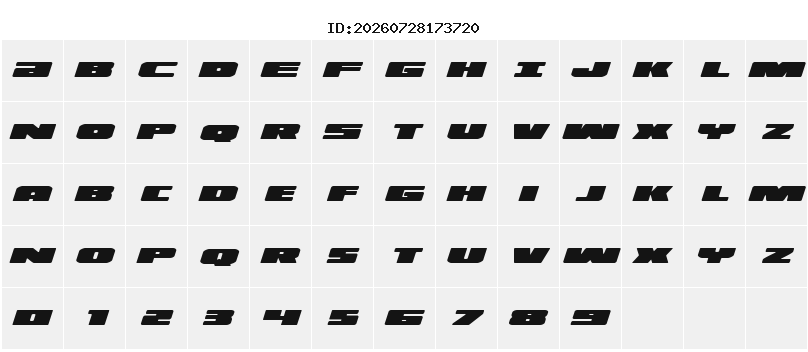
Illumino Expanded Italic Preview
• Font Name: Illumino Expanded Italic
• Font Style: Expanded Italic
• Full Font Name: Illumino Expanded Italic
About Illumino Expanded Italic.ttf
Illumino Expanded Italic.ttf is a modern, elegant sans-serif font designed for ultimate readability and visual harmony. Perfect for branding, headlines, web design, and print materials.